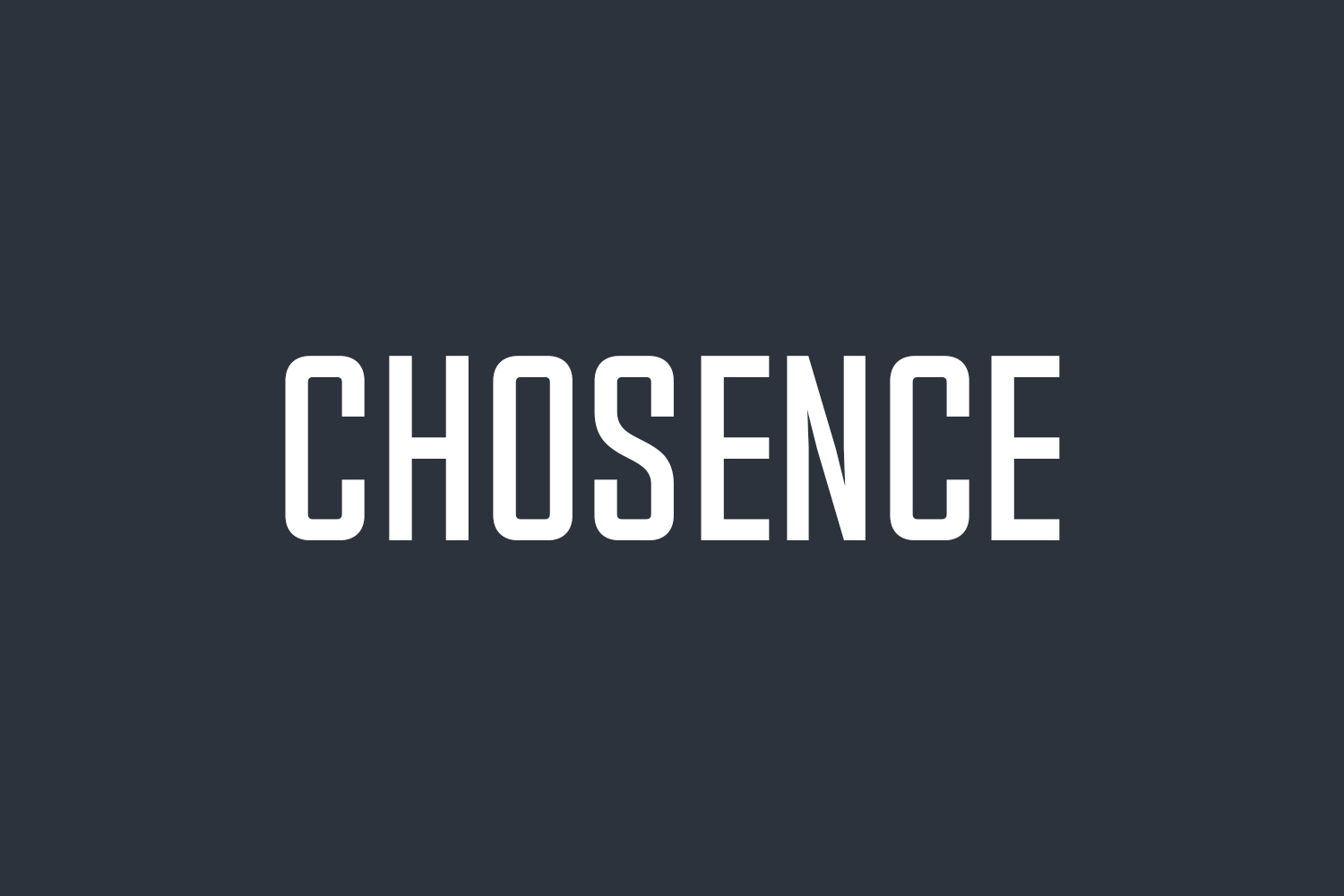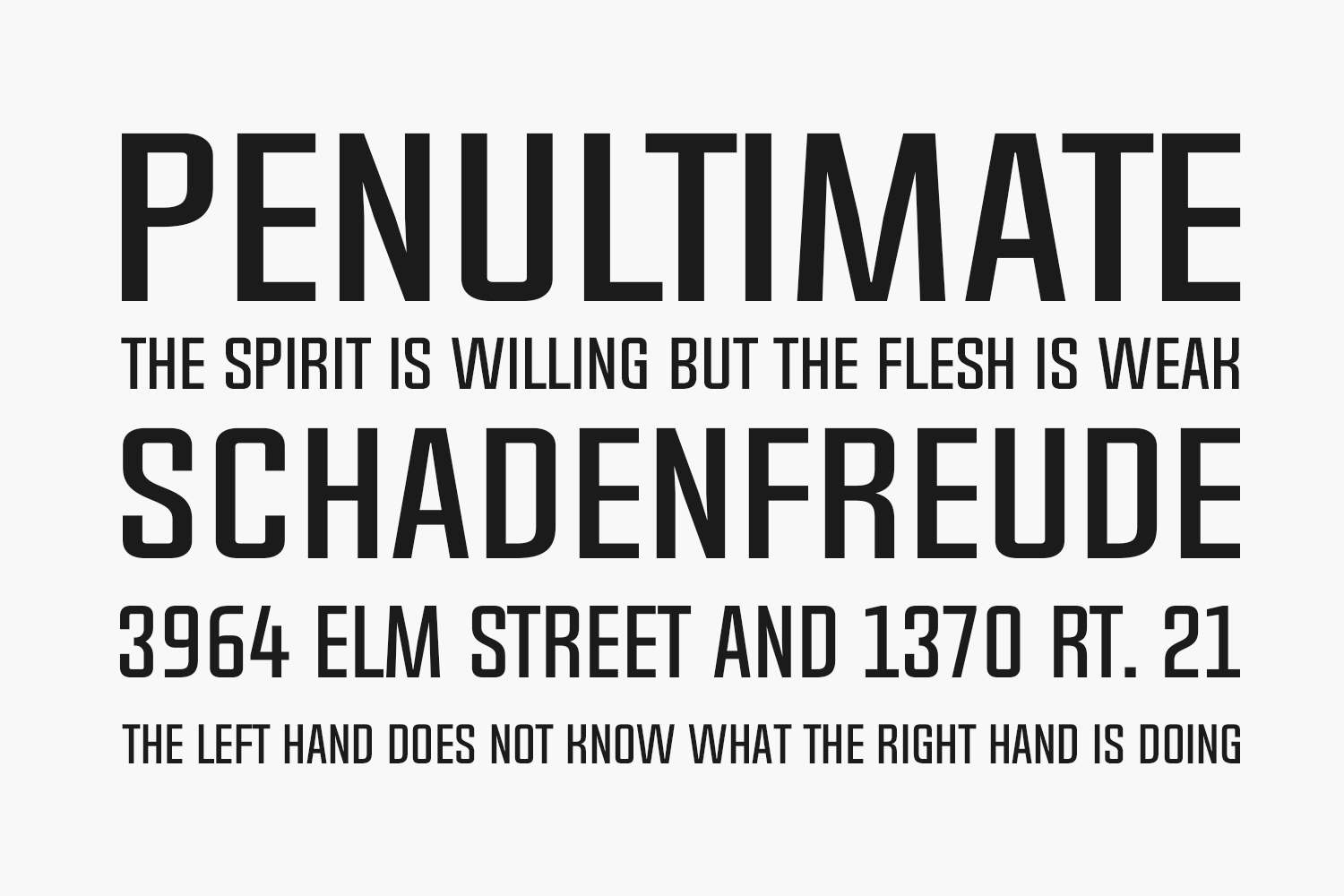
Chosence Free Font Family is an elegant sans serif family that comes with 6 fonts (Regular, Light & Bold – All with an italic version). Chosence Free Font Family was designed by 7NTypes and is free for personal use only. Please purchase the full version for commercial use.